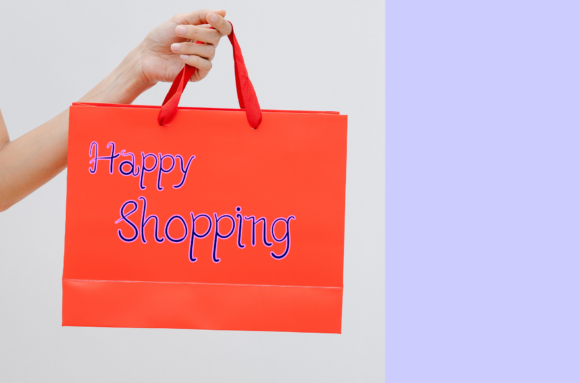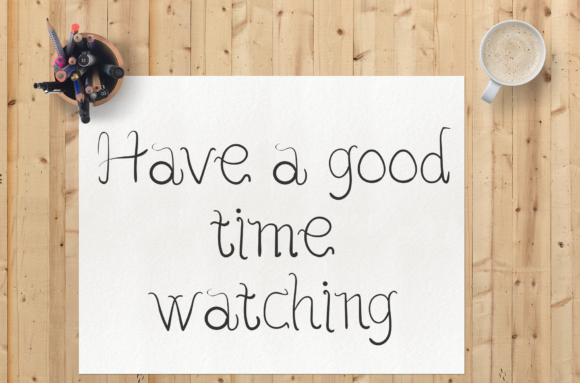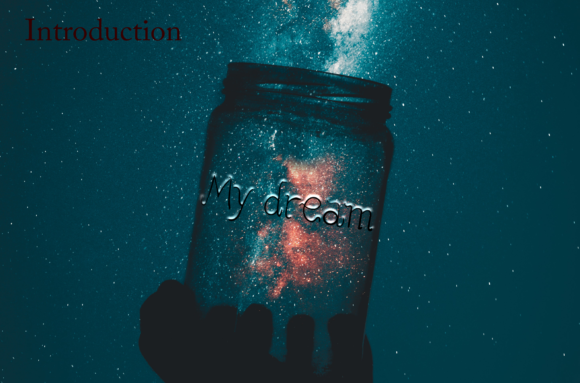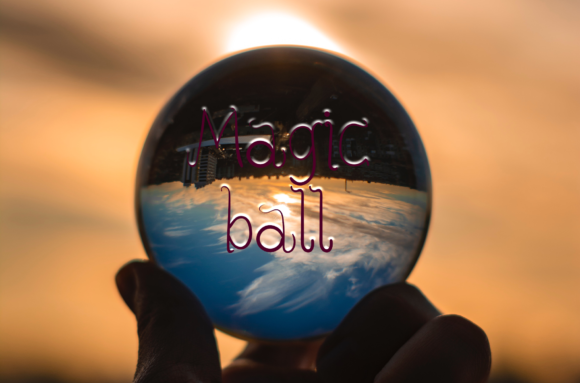
Happy New Year Font: Elevate Your Designs with a Stunning Modern Display Font
As the clock strikes midnight on New Year’s Eve, we bid adieu to the old and welcome the new with open arms. What better way to usher in the new year than with a fresh and exciting font that adds a touch of elegance and sophistication to your designs? Look no further than the Happy New Year Font, a modern display font that is sure to take your creations to the next level.
Inspired by Classic Lettering Posters
The Happy New Year Font is a stunning example of modern typography, drawing inspiration from classic lettering posters that evoke a sense of nostalgia and timelessness. With its bold and expressive lines, this font is perfect for designers and crafters looking to add a touch of vintage charm to their work. Whether you’re designing a logo, creating a poster, or crafting a beautiful wedding invitation, this font is sure to impress.
Versatile and Multifaceted
One of the best things about the Happy New Year Font is its versatility. This font can be used for a wide range of design projects, including:
- Branding: Create a lasting impression with a custom logo that showcases your brand’s personality and style.
- Wedding designs: Add a touch of romance and elegance to your wedding invitations, programs, and other stationery.
- Makeup packaging: Stand out in a crowded market with eye-catching packaging that reflects your brand’s unique style.
- Headlines: Grab attention with bold and eye-catching headlines that make a statement.
- Logos: Create a custom logo that perfectly represents your brand’s values and mission.
- Posters: Design stunning posters that showcase your creativity and style.
Key Features of the Happy New Year Font
So, what makes the Happy New Year Font so special? Here are just a few of its key features:
- Modern display font with a stunning style inspired by classic lettering posters.
- Bold and expressive lines that add a touch of elegance and sophistication to your designs.
- Perfect for designers and crafters looking to add a touch of vintage charm to their work.
- Versatile and multifaceted, with a wide range of design applications.
- Easy to use and customize, with a simple and intuitive design.
Tips for Using the Happy New Year Font
To get the most out of the Happy New Year Font, here are a few tips to keep in mind:
- Use the font in combination with other design elements, such as images and graphics, to create a visually appealing design.
- Don’t be afraid to get creative and try out new and innovative design ideas.
- Use the font consistently across different design projects to create a cohesive brand identity.
In conclusion, the Happy New Year Font is a stunning modern display font that is sure to elevate your designs to the next level. With its bold and expressive lines, versatile design applications, and ease of use, this font is perfect for designers and crafters looking to add a touch of elegance and sophistication to their work. So why wait? Download the Happy New Year Font today and start creating stunning designs that showcase your creativity and style.